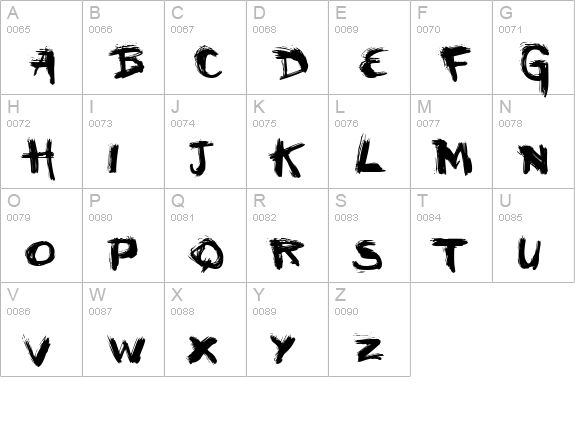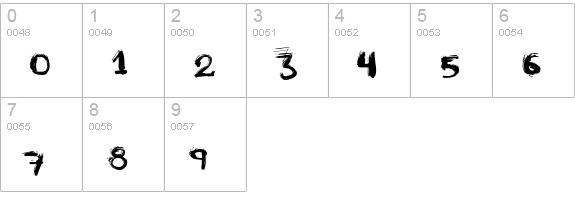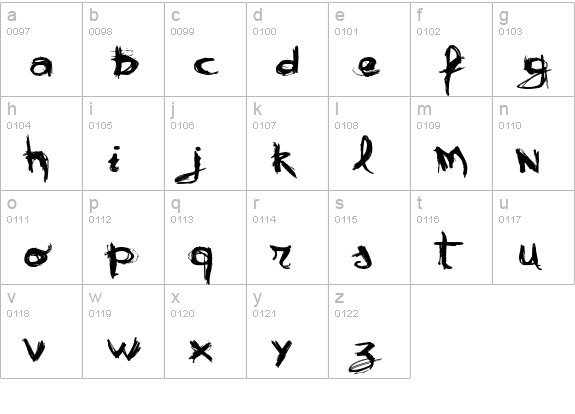
VTKS mural Font Details
The VTKS Mural font is a unique and artistic typeface that exudes creativity and originality. Its hand-drawn style gives off a playful and whimsical vibe, making it perfect for designs that require a touch of individuality. The fluid strokes and uneven lines of this font create a visually captivating look that is sure to stand out. What makes the VTKS Mural font even more appealing is that it is available for free download at FontsMarket.com. This means that you can easily access this one-of-a-kind font and use it in your projects without any cost. Whether you are working on a poster, logo, or any other design, the VTKS Mural font is a great choice to add a creative flair to your work. Download it today and let your imagination run wild with this free and captivating typeface.